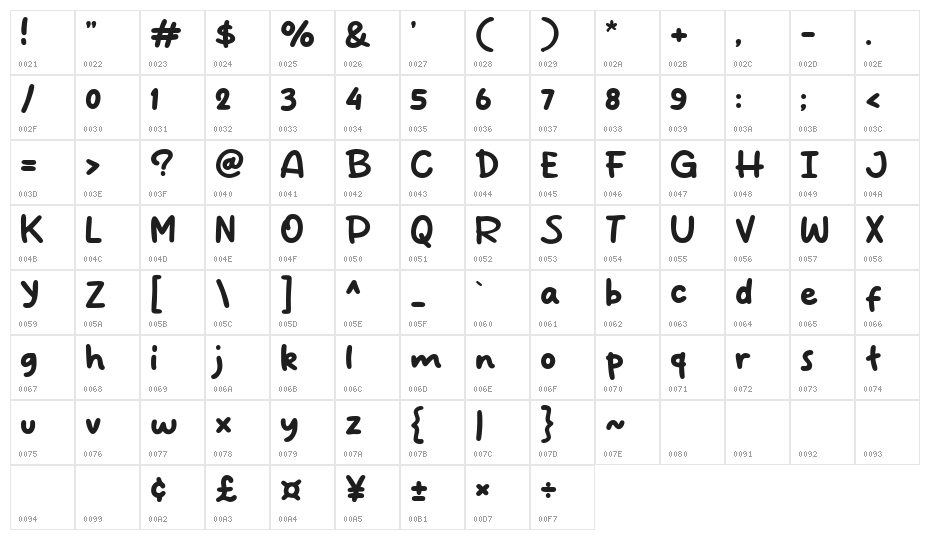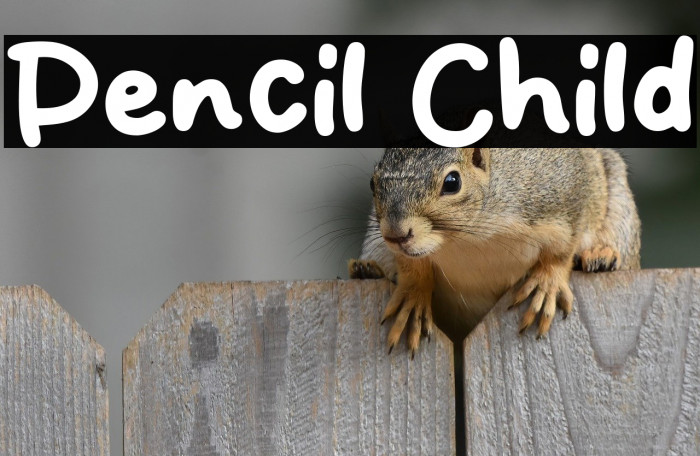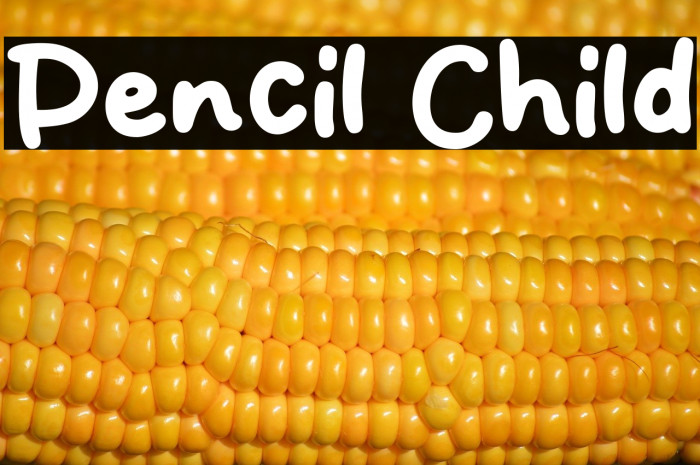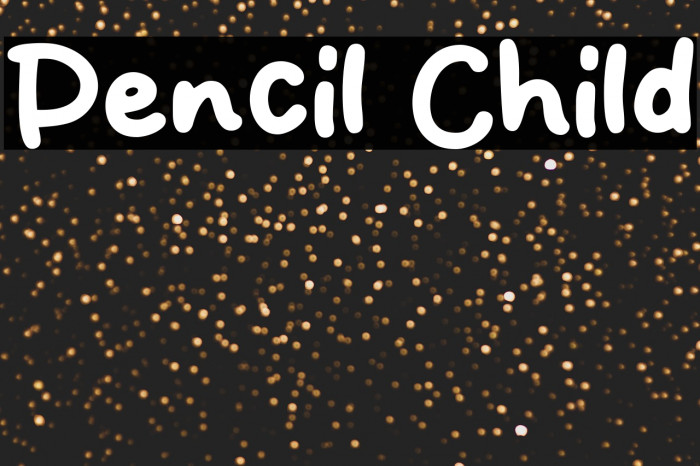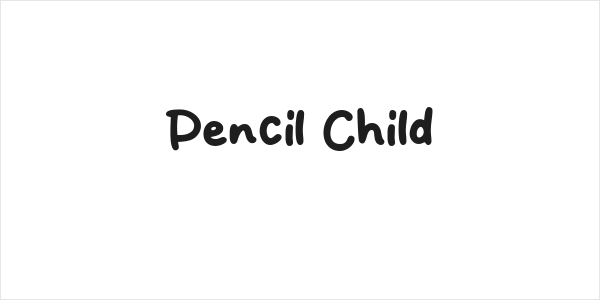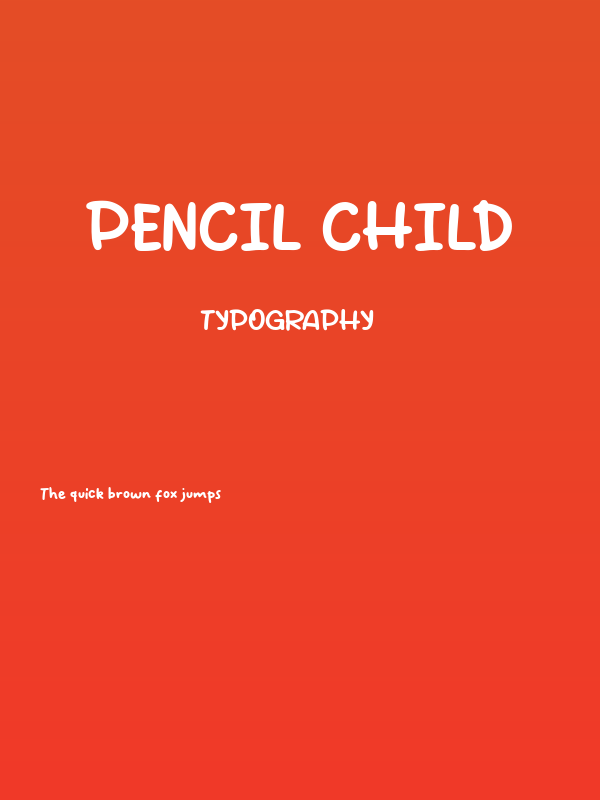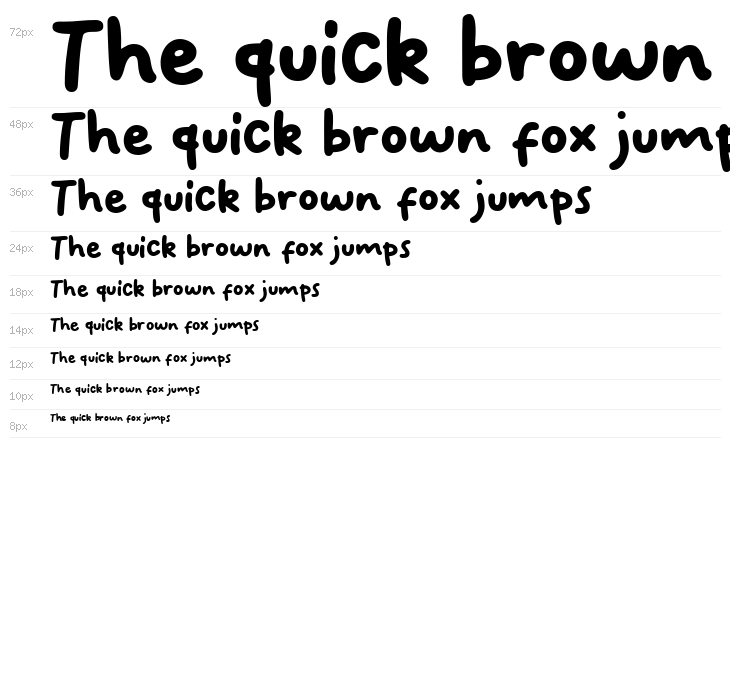
Pencil Child Font
Pencil Child Description
This playful and whimsical font features a handwritten style that mimics the look of child-like writing with a pencil. The characters are bold and rounded, giving a friendly and approachable feel. Each letter is slightly irregular, adding to the charm and authenticity of the handwritten effect. The font maintains a consistent stroke width, providing a uniform appearance across all characters. The spacing between characters is moderate, ensuring readability while preserving the casual aesthetic. This font is ideal for projects that require a fun and informal touch, such as children's books, educational materials, or playful branding.
| Overall Style | Playful, Casual |
| Proposed Projects | Children's books, educational materials, playful branding, greeting cards. |